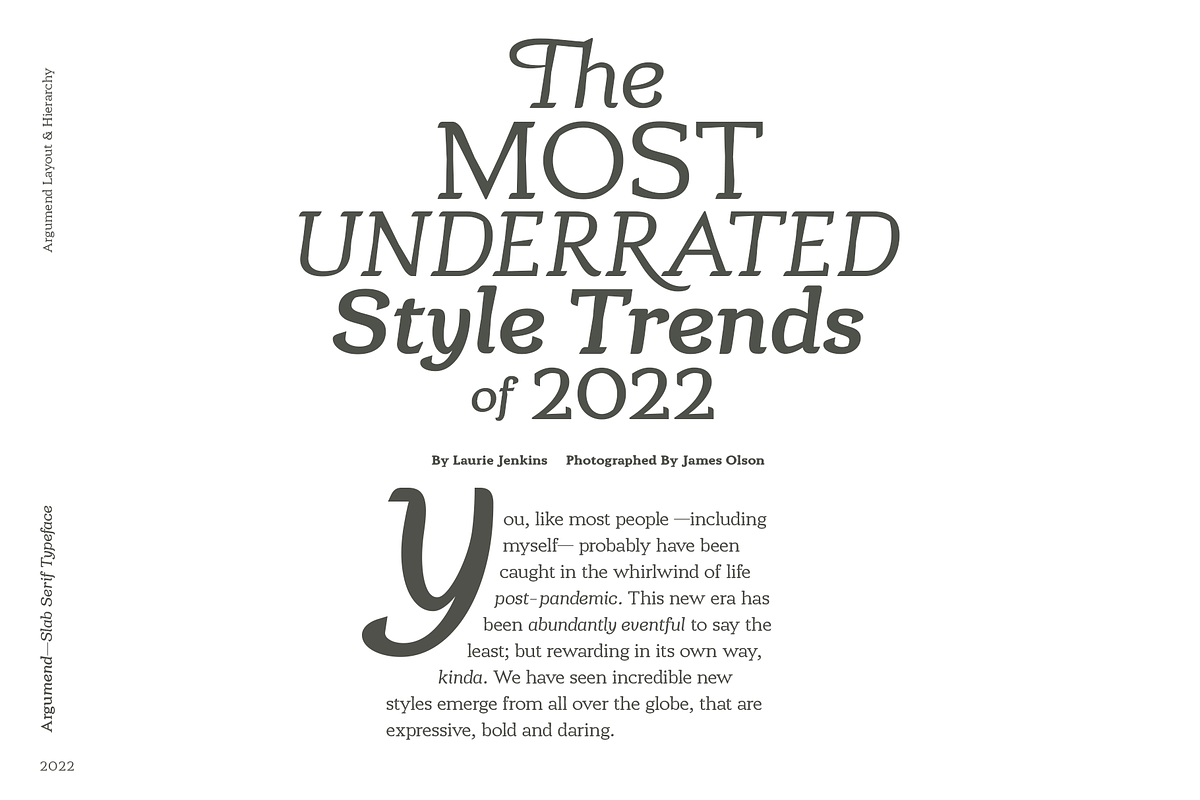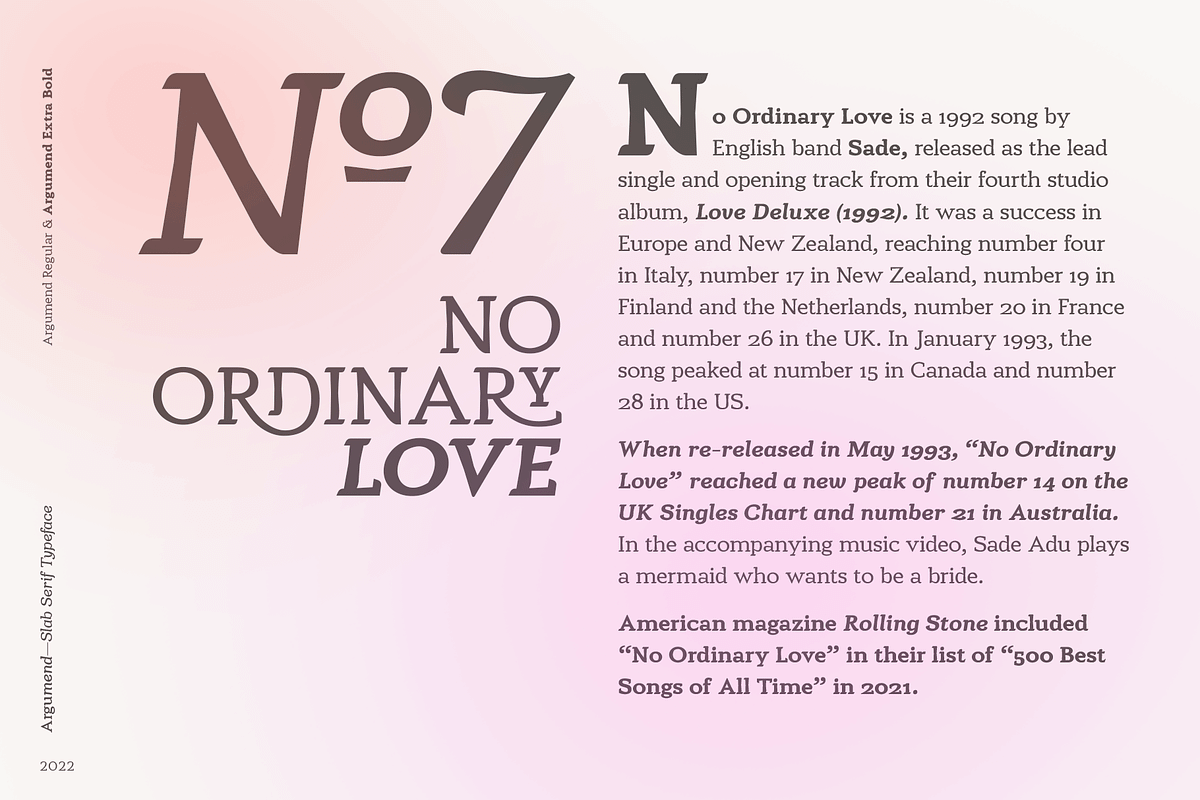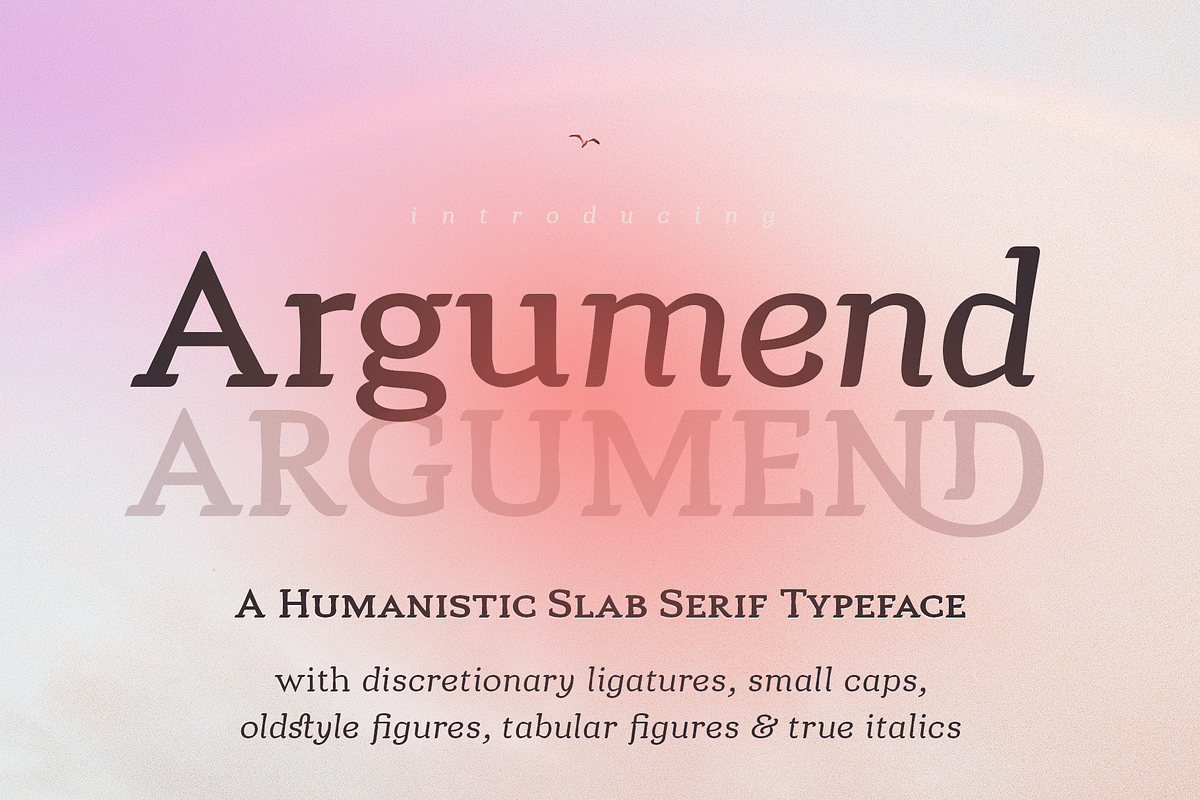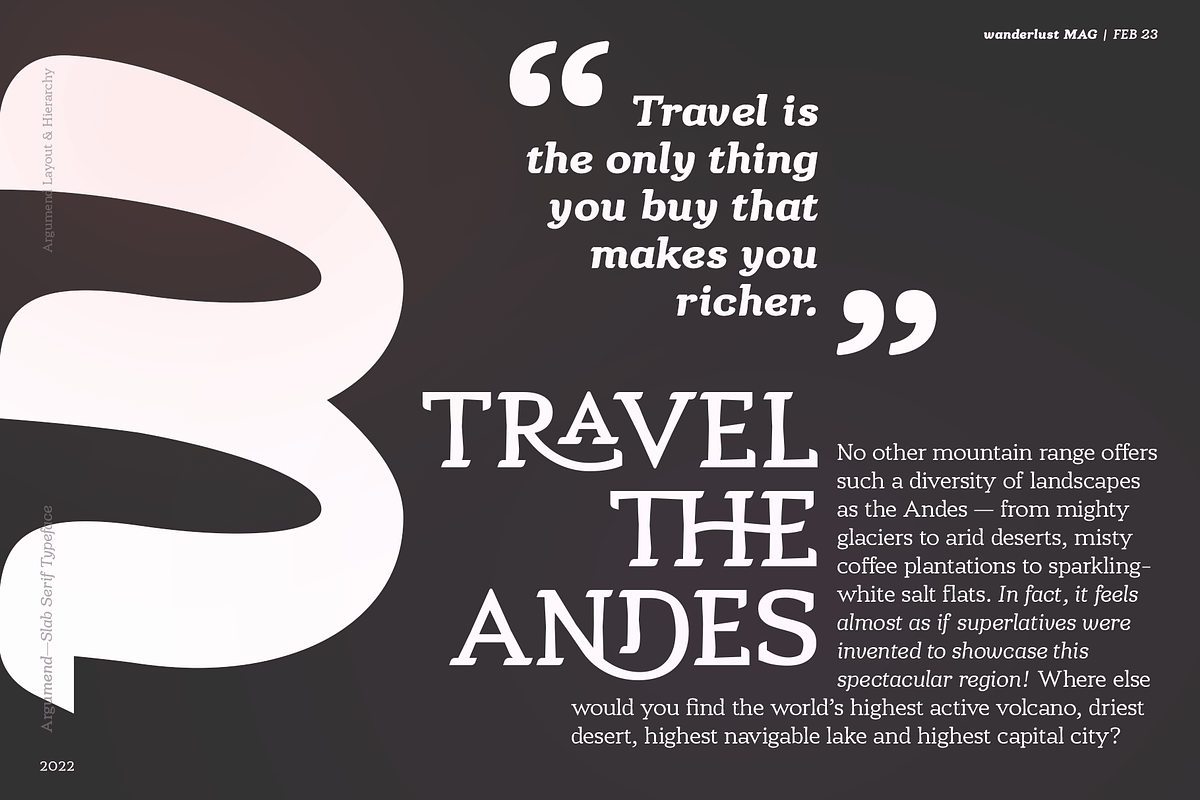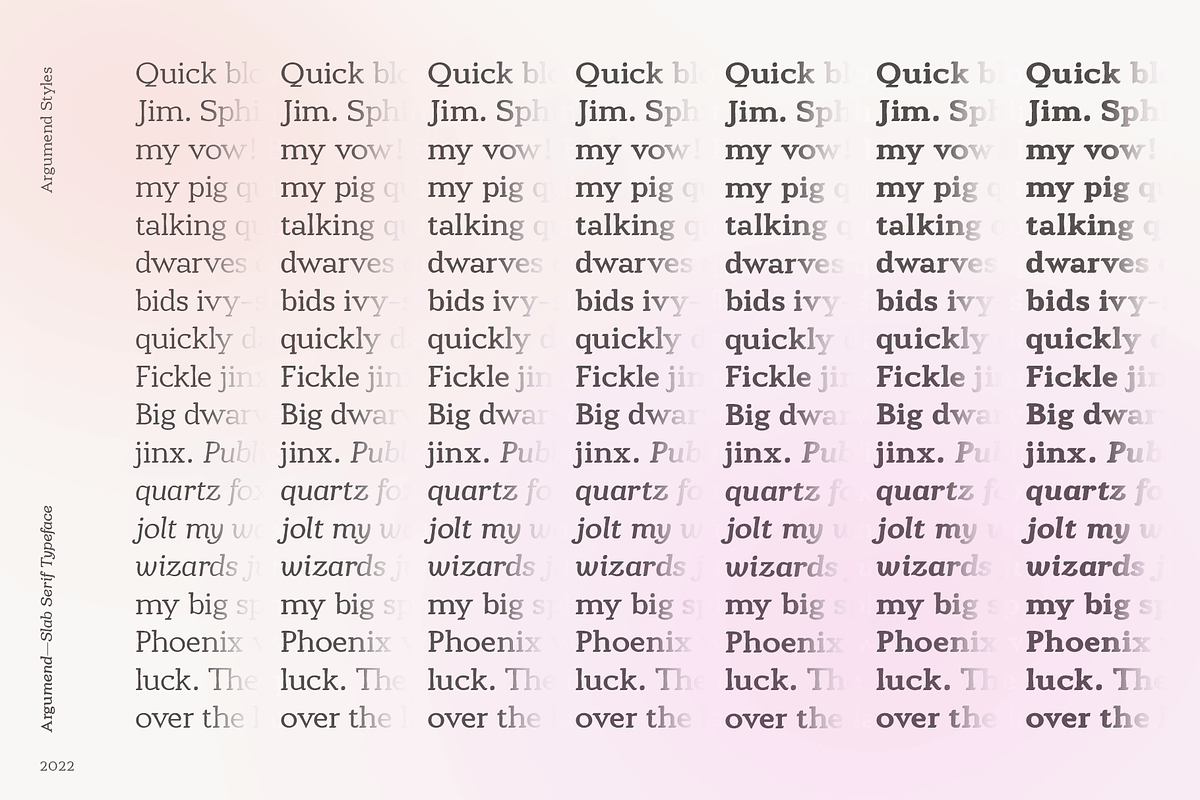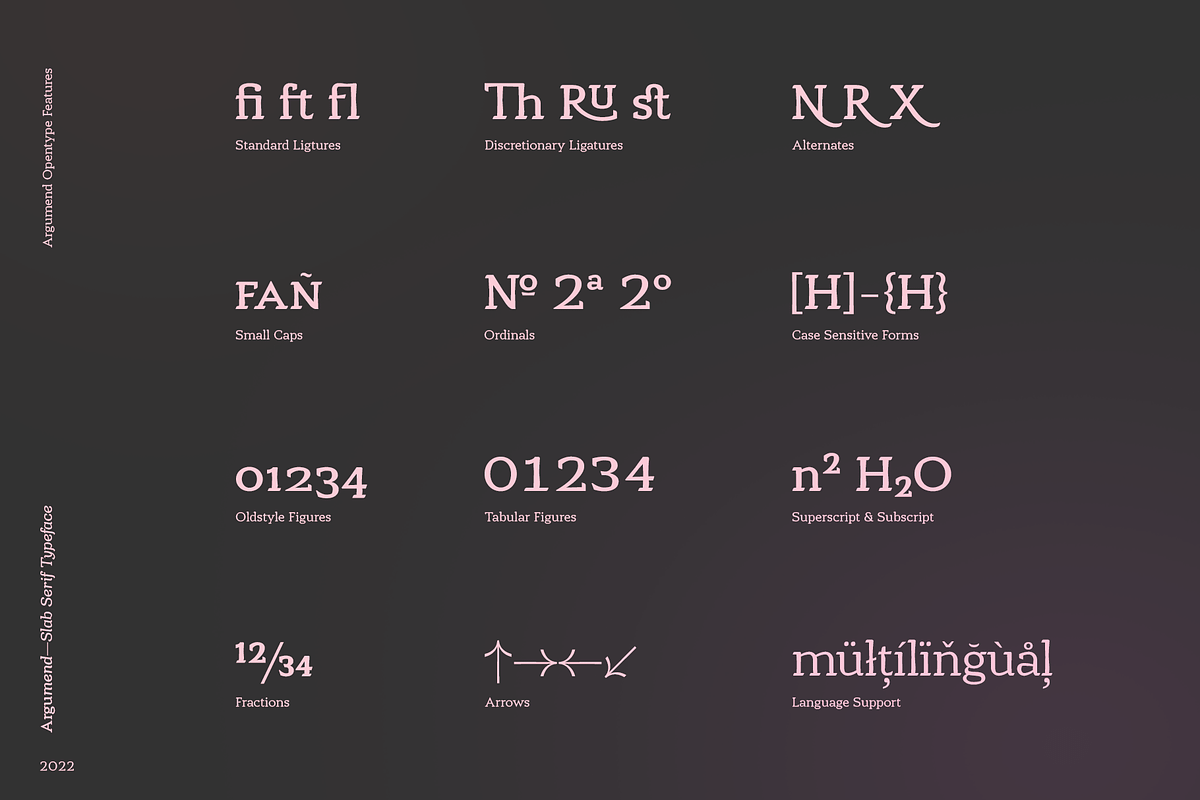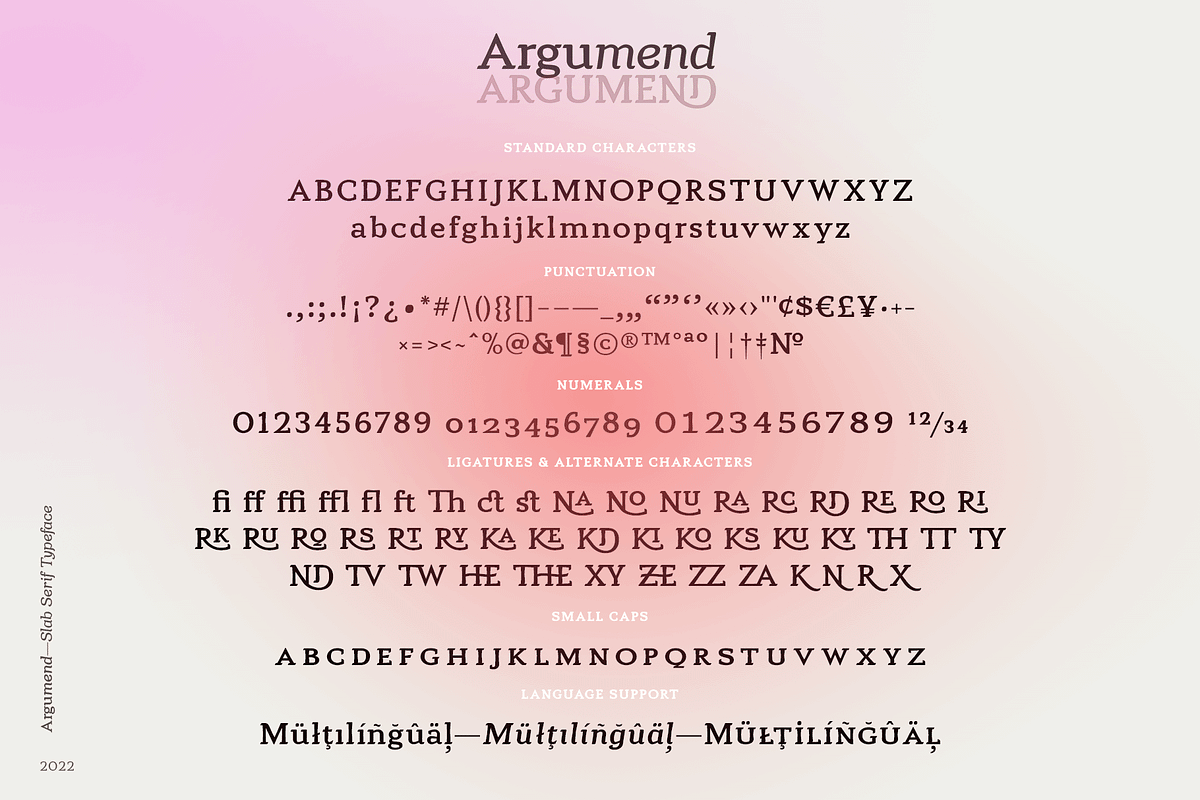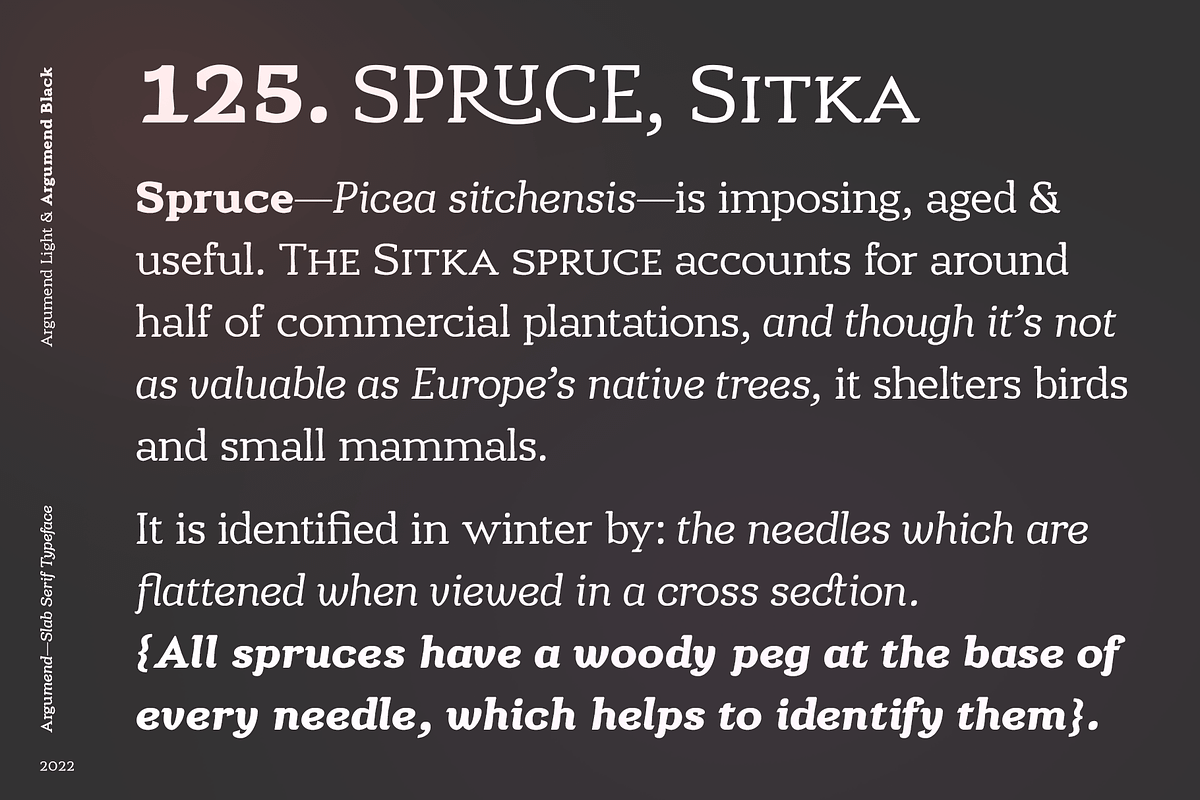
Argumend | A Humanistic Slab Serif
Argumend | A Humanistic Slab Serif Typeface
Argumend is a versatile slab serif typeface with a wide range of Opentype features. Create strong and eye catching headlines with its upper case ligatures or make use of its many weights and true italics to create mindful body copy; either way, Argumend is rich with typographic options to help create attention worthy text.
- Upper Case & Lower Case Character Sets
- Extended Punctuation
- Proportional, Oldstyle and Tabular Numbers
- Fractions, Superscript and Subscript
- Standard & Discretionary Ligatures
- Small Caps
- Case Sensitive Forms
- Arrows